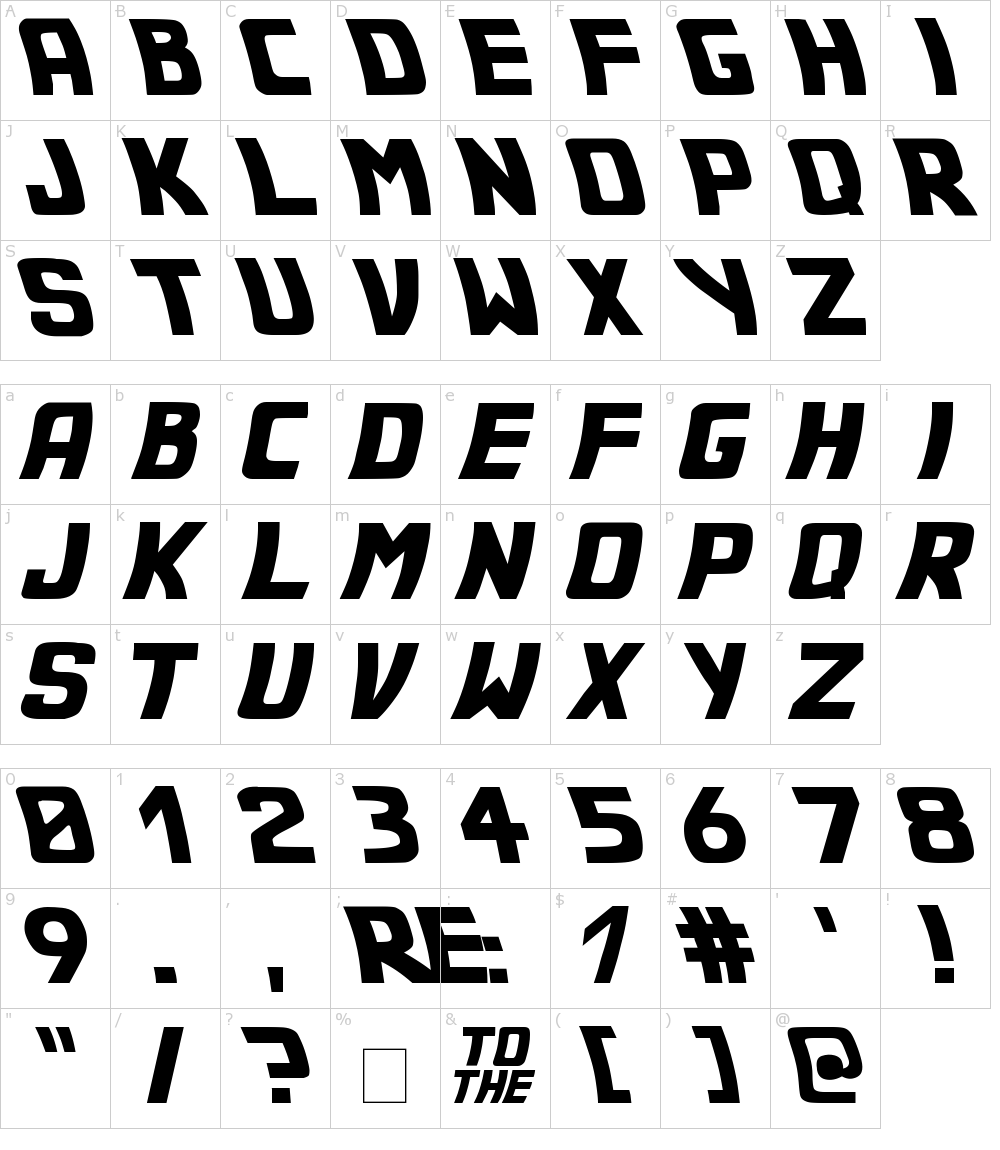
Back To The Future Is The Perfect Font For All Your Fun Designs.
Bttf Trilogy Is One Of My All Time Favourite Movie, So I Thought To Myself,.
The back to the future font was designed by high logic erwin denissen 1999. Looking for back to the future fonts? This trilogy that is the story of a.